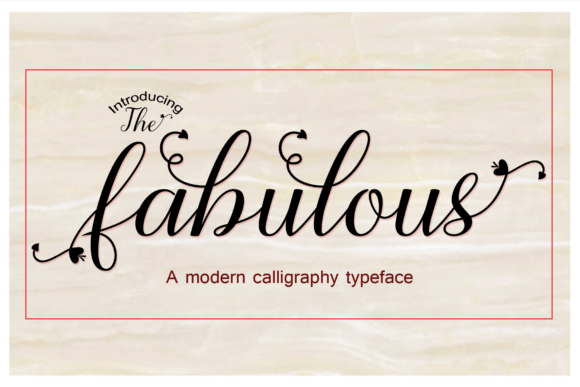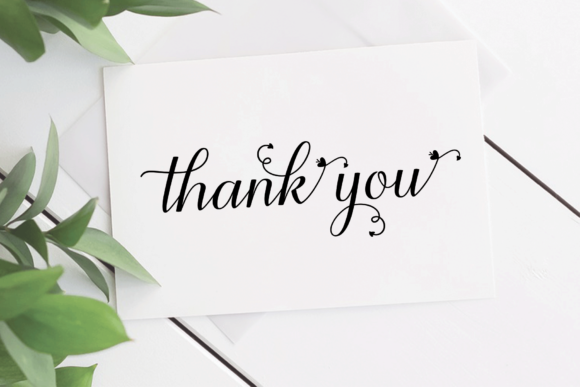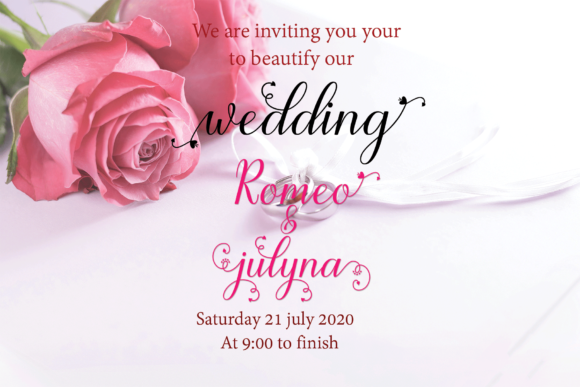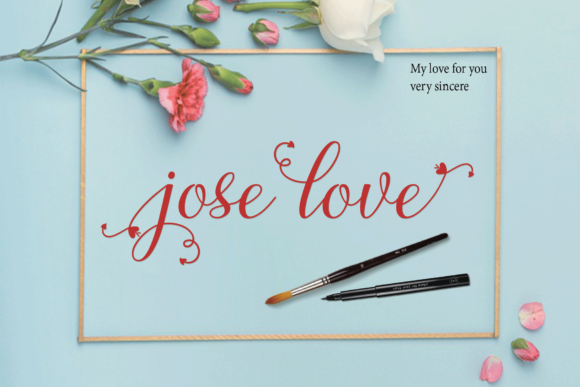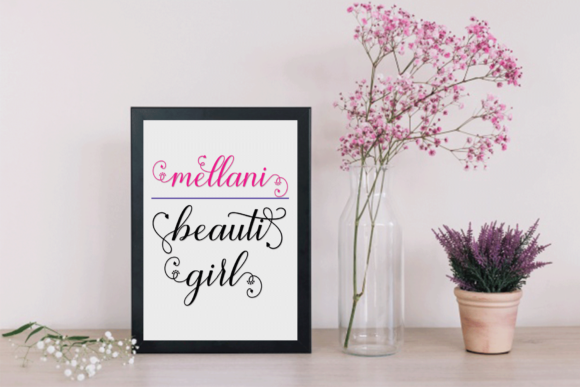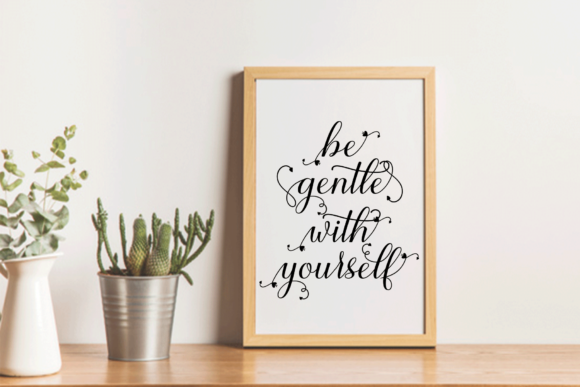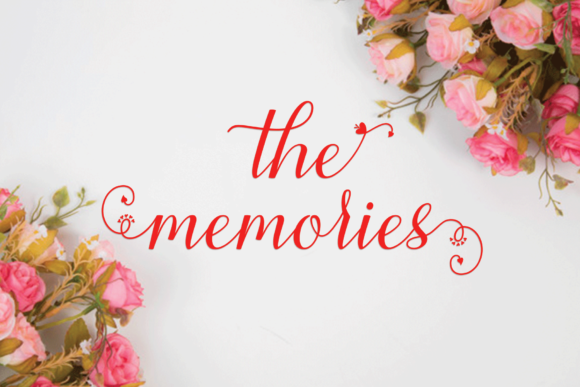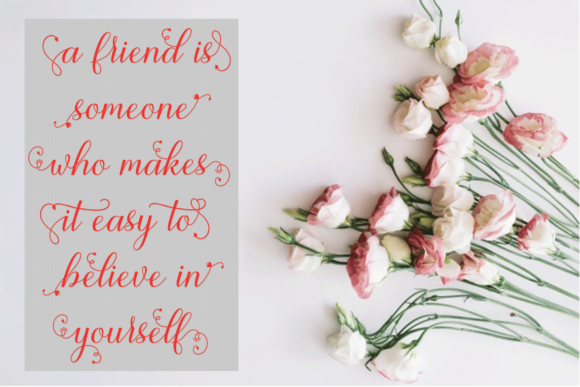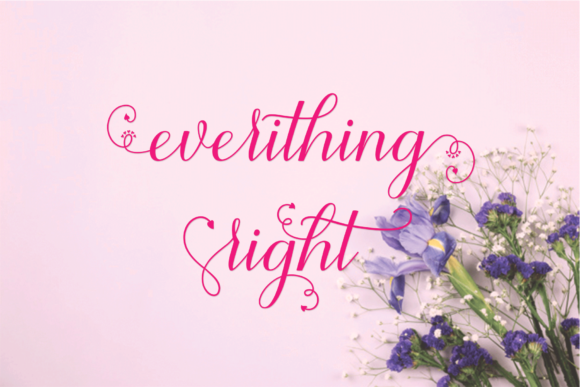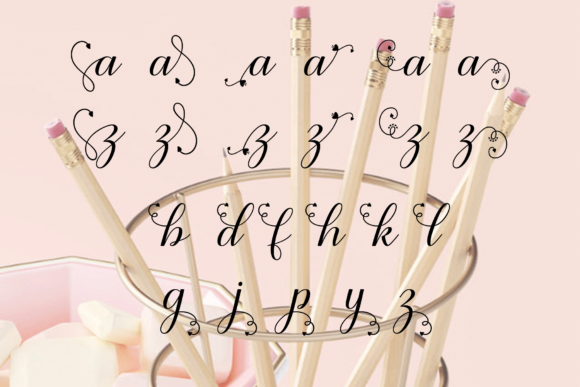
The Fabulous Font
About The Fabulous Font
The Fabulous is a cute and casual handwritten font with an incredibly friendly feel. It features gorgeous swashes and ligatures that make this script incredibly versatile. Whether you’re looking for fonts for Instagram or calligraphy scripts for DIY projects, The Fabulous will turn any creative idea into a true piece of art!